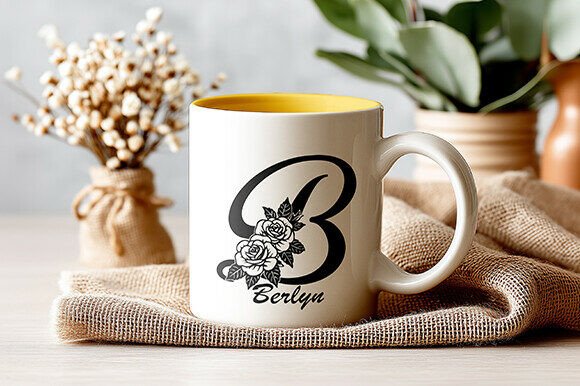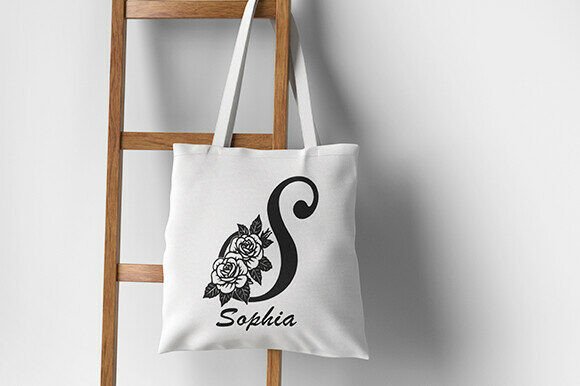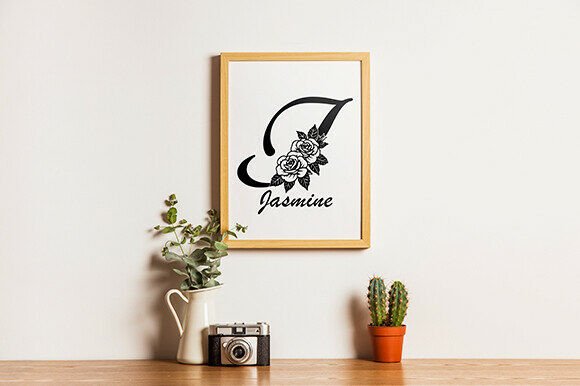
Introduction to Mom Floral Script Monogram Font
Have you ever stumbled upon a font that sparks a wave of creativity and leaves you yearning to bring your next design project to life? For many designers, this moment of inspiration is what drives them to push the boundaries of their art. For those seeking a touch of elegance and sophistication, the Mom Floral Script Monogram Font is sure to become a trusted companion in your creative journey.
As a valuable design resource, Mom Floral Script Monogram Font offers a unique blend of classic charm and nature-inspired flair. Its fluid, handcrafted strokes and cursive lettering evoke a sense of luxury and refinement, making it an ideal choice for upscale branding, custom logos, and high-end packaging design.
Whether you’re working on a premium cosmetic packaging design, a distinguished wedding invitation, or a stylish ‘luxury spa’ themed social media banner, the Mom Floral Script Monogram Font is sure to elevate your project to new heights. And the best part? This stunning font is available for free download with a transparent background, making it easy to incorporate into your high-quality designs.
Key Features of Mom Floral Script Monogram Font
- Unique and elegant design perfect for creative projects, such as scrapbooking, invitations, and greeting cards.
- High-quality font with intricate floral details and a beautiful script style, ideal for a design resource.
- Each monogram is designed with precision, allowing for customization and personalization of the design.
- Perfect for mothers, mothers-to-be, and anyone looking to add a touch of elegance and sophistication to their creative project.
Honest Review: Mom Floral Script Monogram Font
I recently came across the Mom Floral Script Monogram Font, and I must say, it’s a beautiful addition to any design resource collection. As a designer, I’m always on the lookout for unique and high-quality fonts to elevate my creative projects. This font definitely delivers.
Here are some of the things that work well:
- ✨ The floral script design is incredibly detailed and intricate, making it perfect for adding a touch of elegance to any project.
- ✨ The font is highly customizable, making it easy to adjust the size, color, and style to suit your needs.
- ⚠️ The font may not be suitable for small-scale designs, as the intricate details can get lost.
- ⚠️ The font is a script font, which means it may not be as readable as other font styles.
Overall, I’m thoroughly impressed with the Mom Floral Script Monogram Font. It’s a beautiful and versatile design resource that can add a touch of sophistication to any creative project. I would definitely recommend it to designers looking for a high-quality font to add to their collection.
For optimal results, use the Mom Floral Script Monogram Font in conjunction with high-quality images and a clean design aesthetic. Experiment with different font sizes and colors to create a visually appealing design.
The Mom Floral Script Monogram Font is ideal for creating personalized gifts, invitations, and other creative projects that require a touch of elegance and sophistication. Its high-quality design makes it perfect for use in wedding invitations, baby shower decorations, and other special occasions.